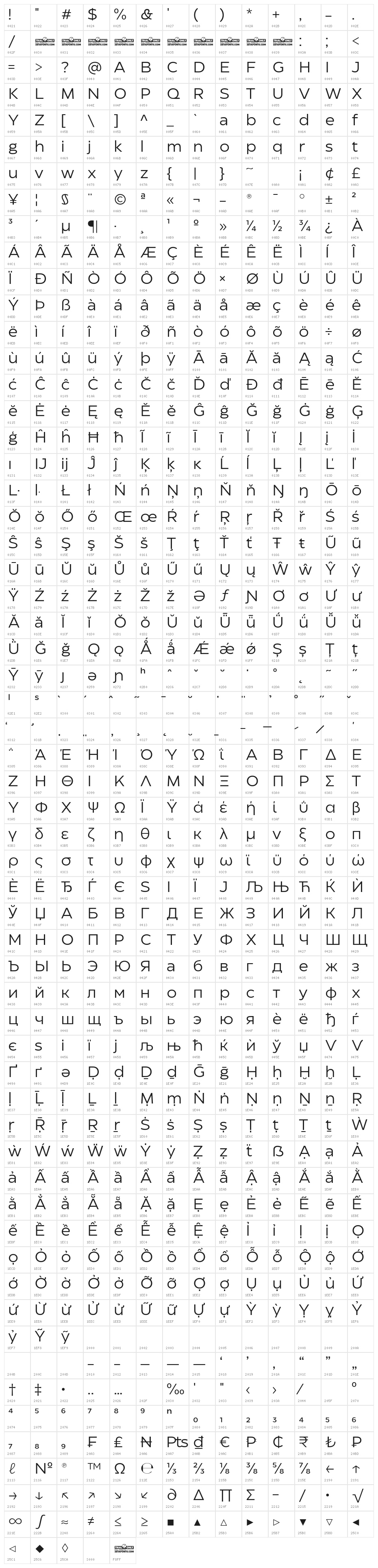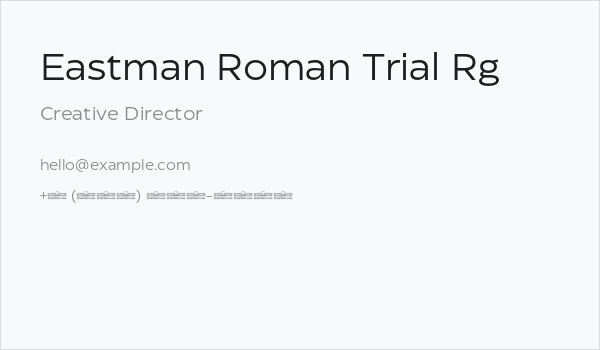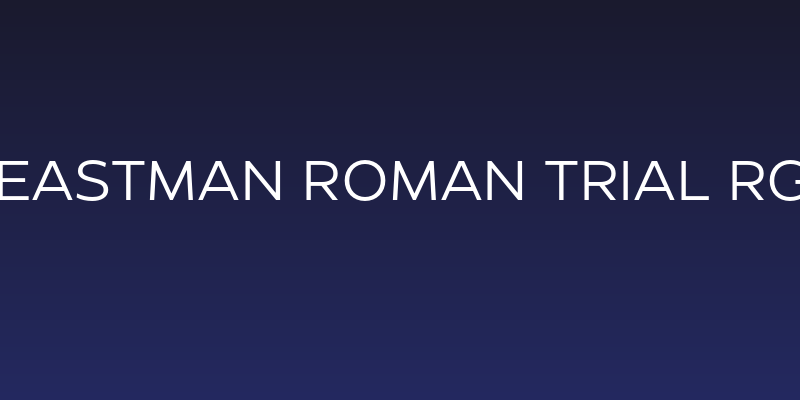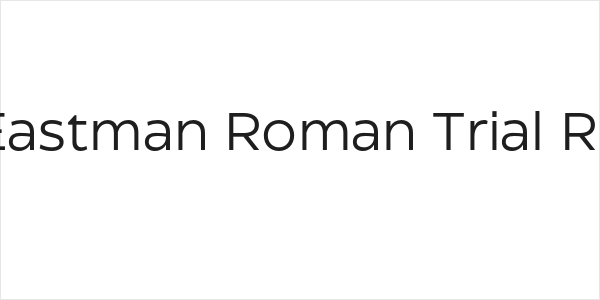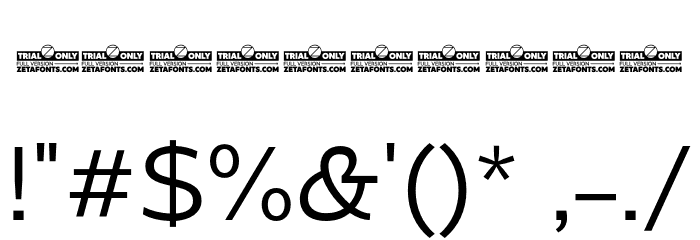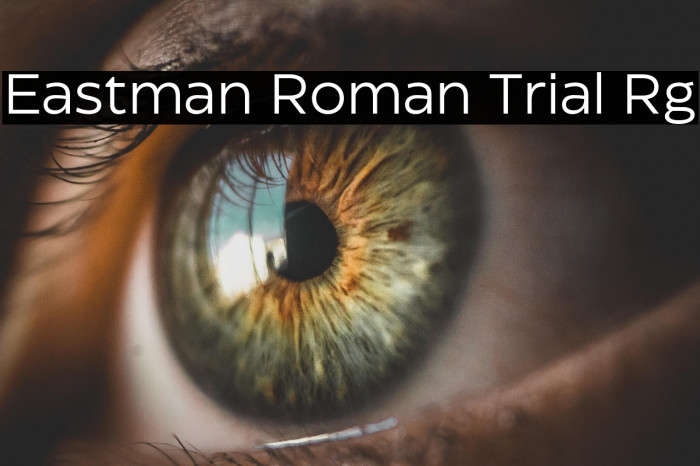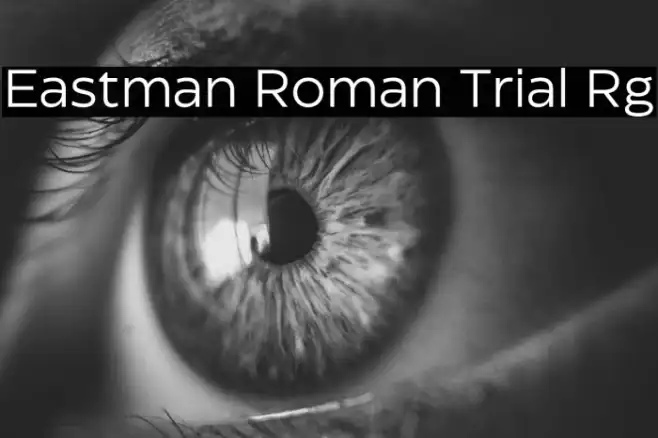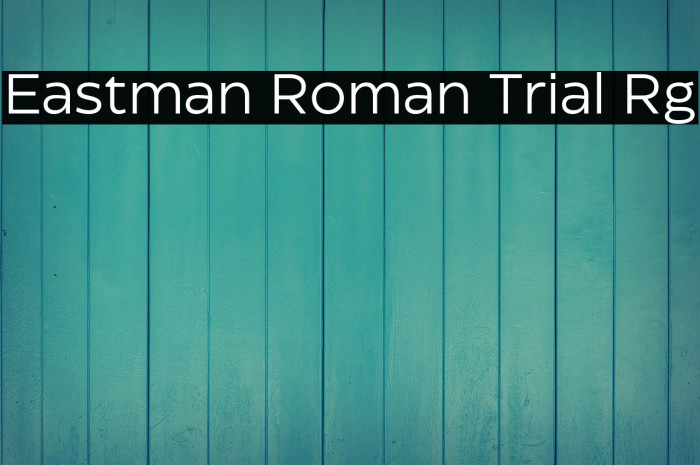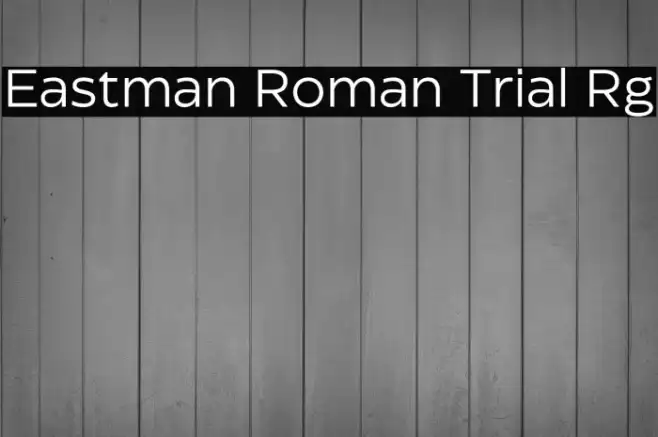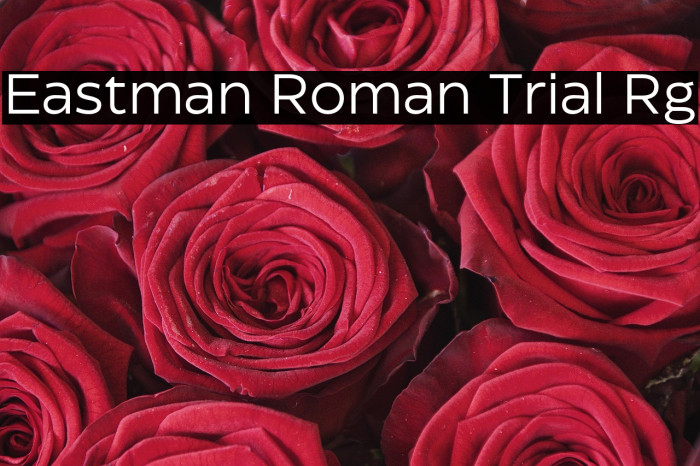
Eastman Roman Trial Rg Font
Eastman Roman Trial Rg Description
This font features a clean and modern sans-serif style with a uniform stroke width, creating a sleek and professional appearance. The characters are well-balanced with a geometric influence, evident in the circular shapes of letters like 'O' and 'C'. The uppercase and lowercase letters maintain a consistent height ratio, enhancing readability. The numerals are clear and straightforward, matching the overall aesthetic. Special characters are designed with simplicity, ensuring they integrate seamlessly with the text. This font's minimalistic design makes it versatile for various applications.